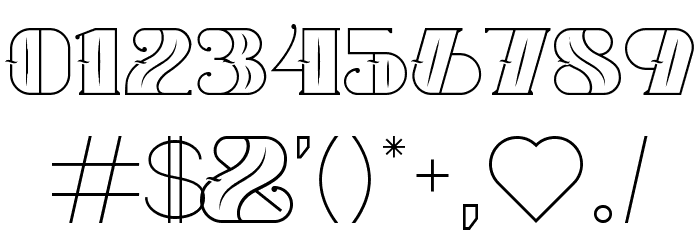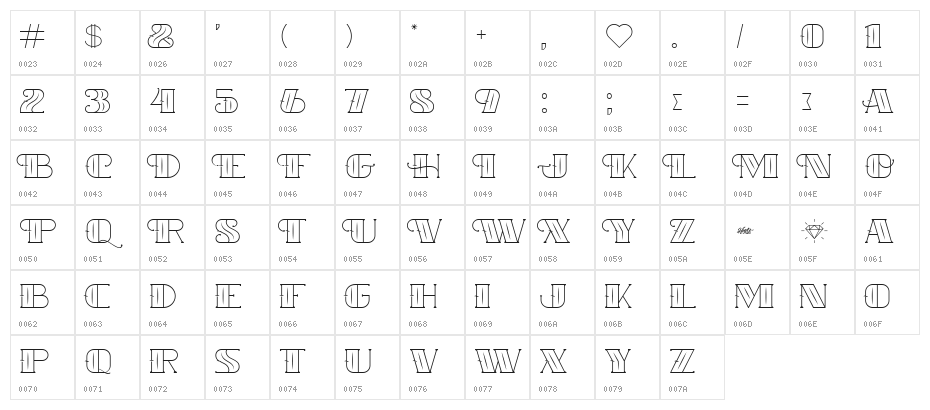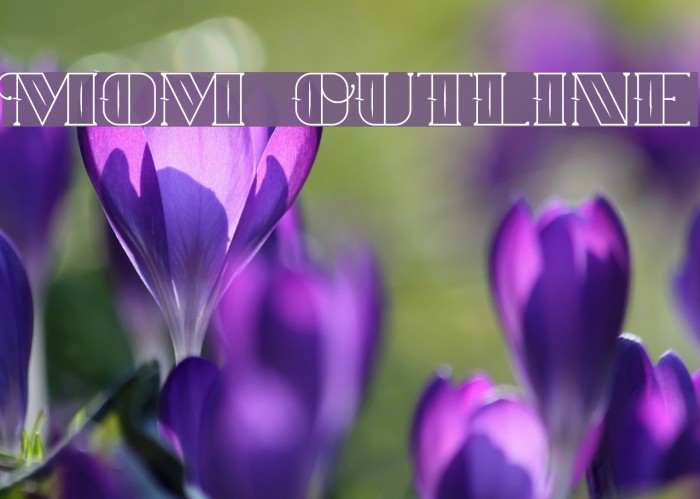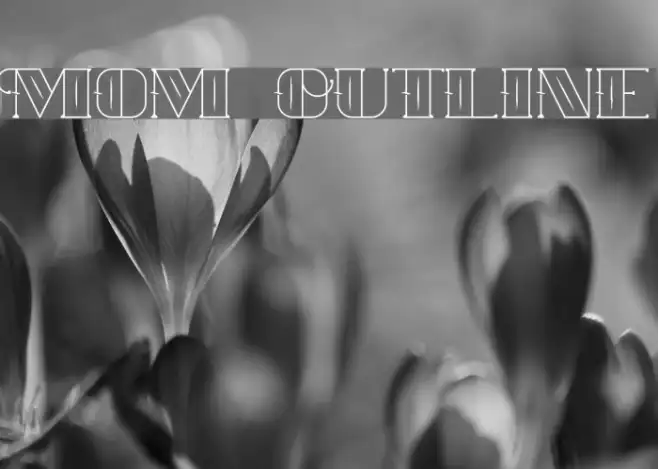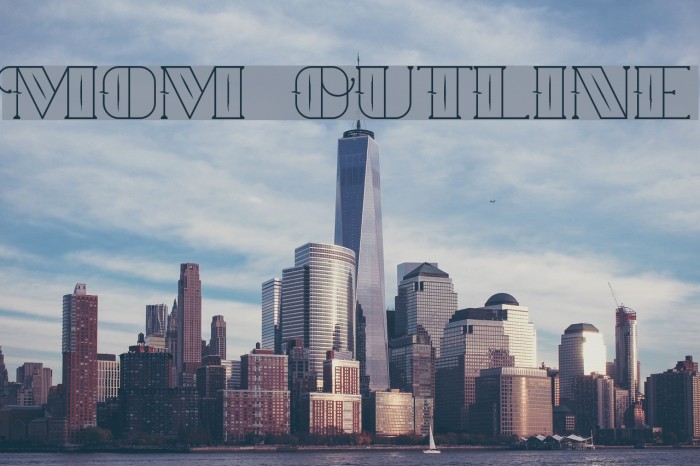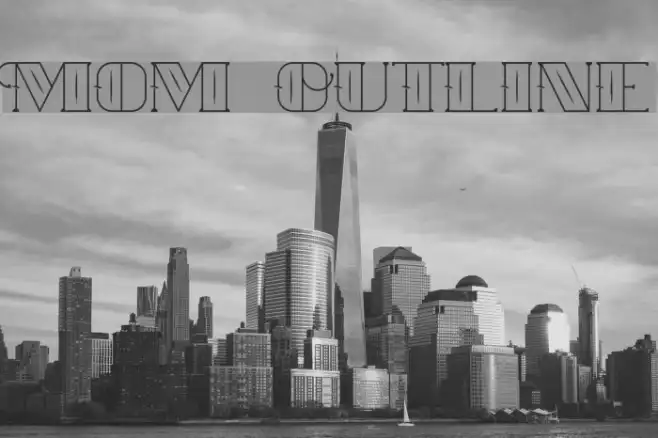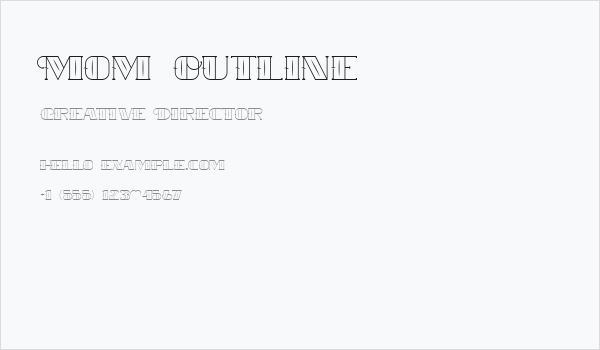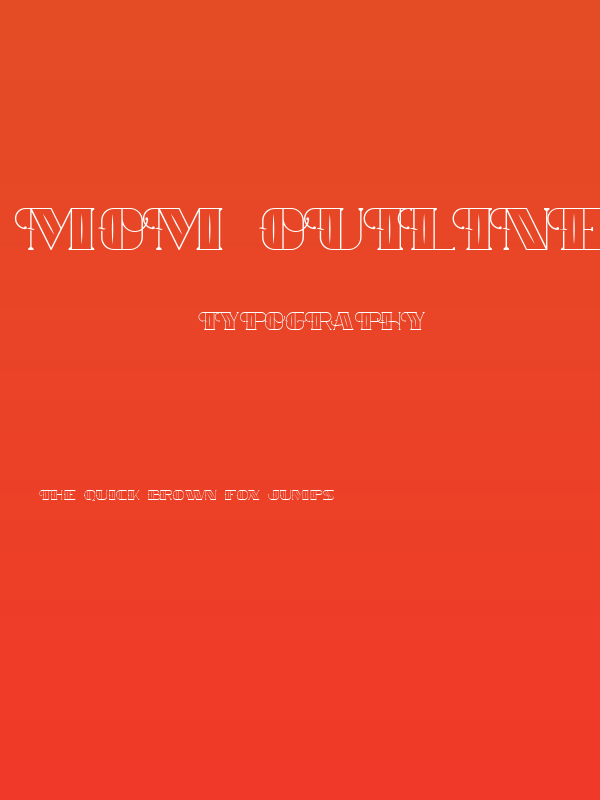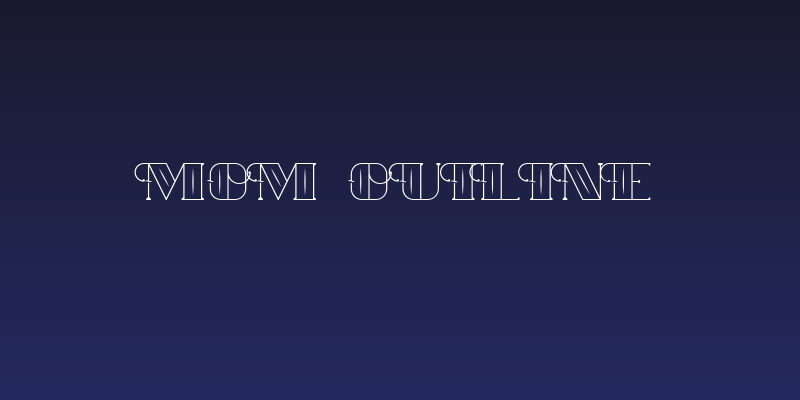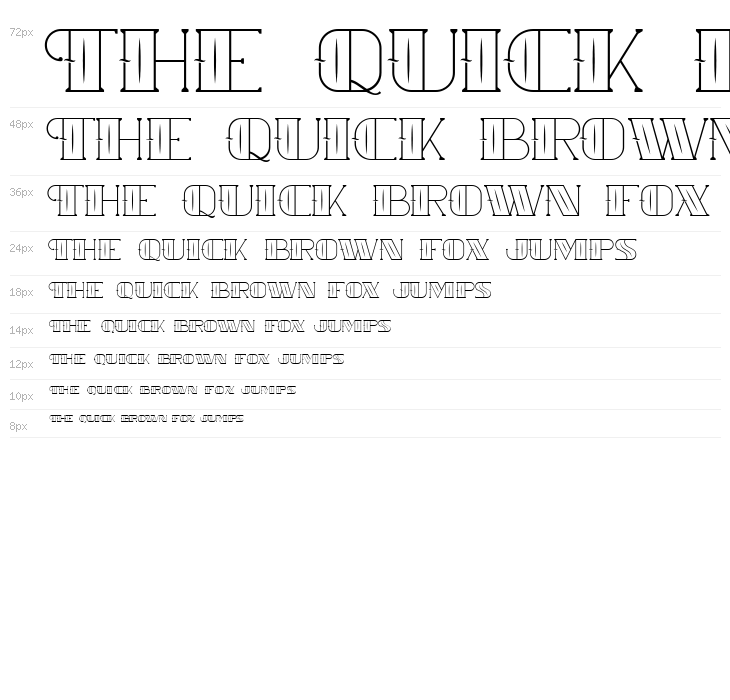
Mom Outline Font
Mom Outline Description
This font features a unique outline style that combines geometric precision with a playful aesthetic. Each character is crafted with a double-line structure, creating a hollow effect that emphasizes its bold and modern appearance. The uppercase and lowercase letters maintain a consistent height and width, ensuring uniformity across the typeface. Numbers and special characters are designed with the same attention to detail, making them stand out with their distinctive outline form. The font's clean lines and open spaces make it highly legible, even at smaller sizes. Its decorative nature lends itself well to creative projects where a bold statement is desired.